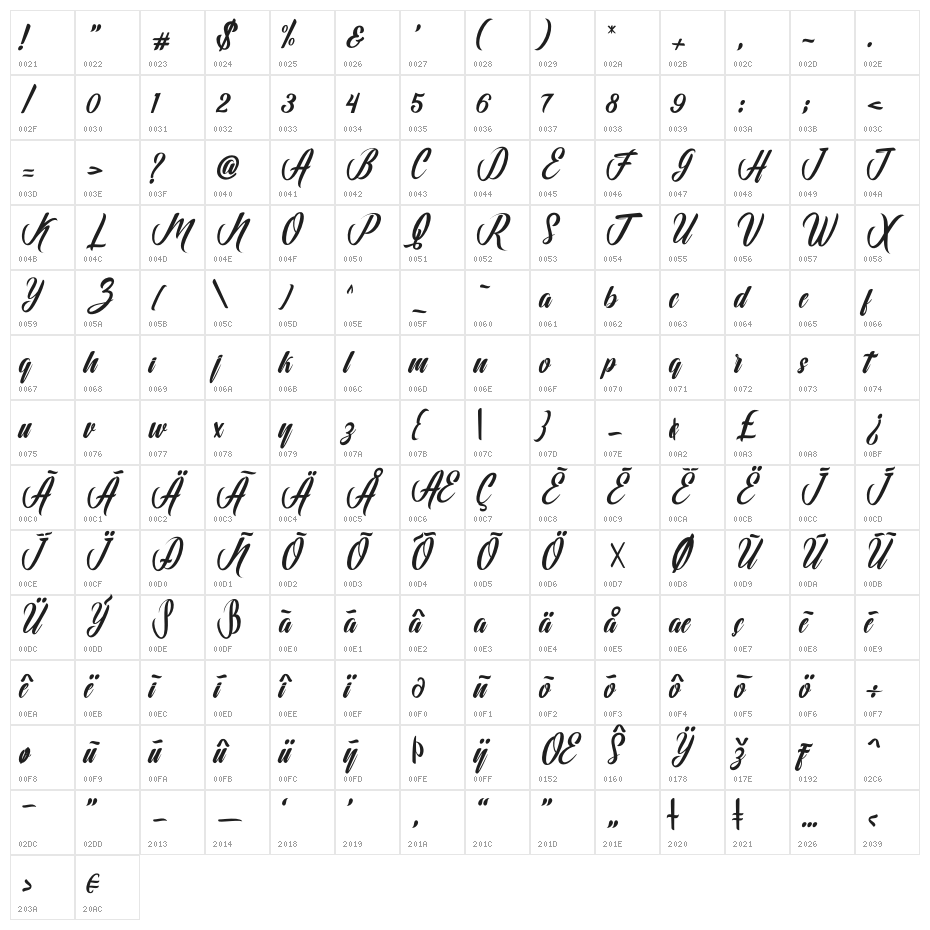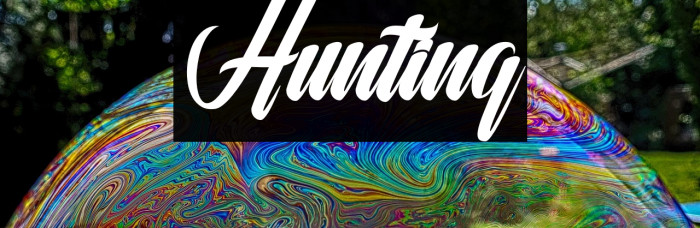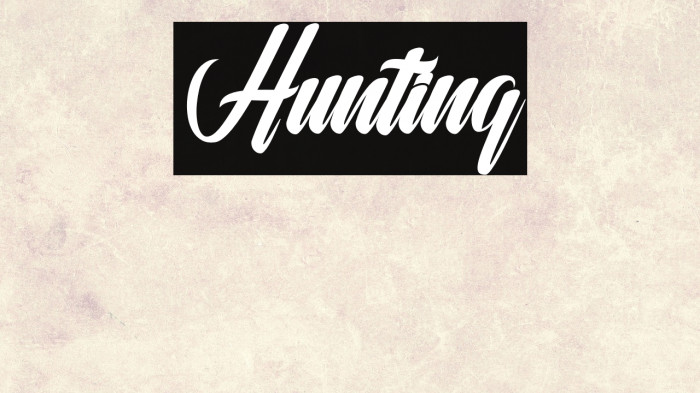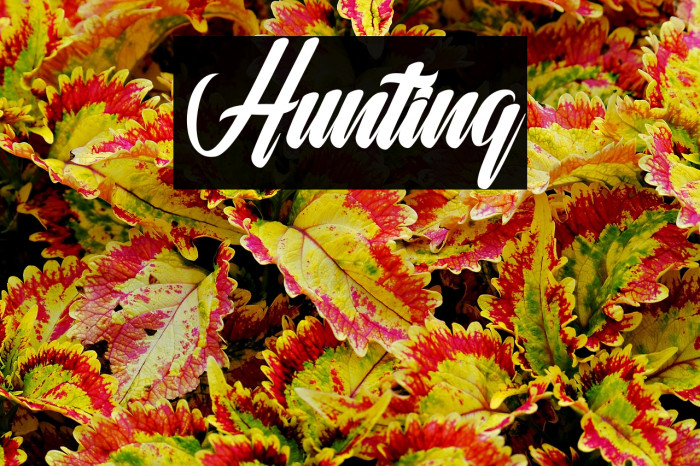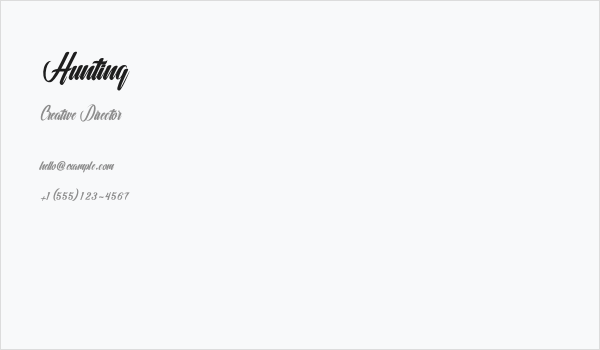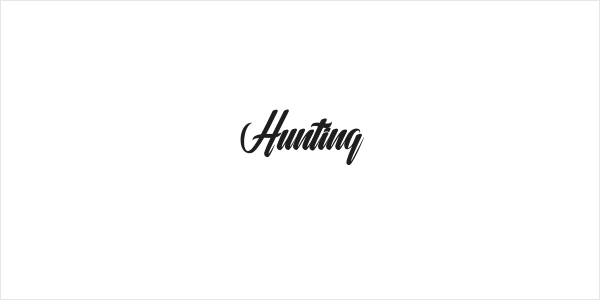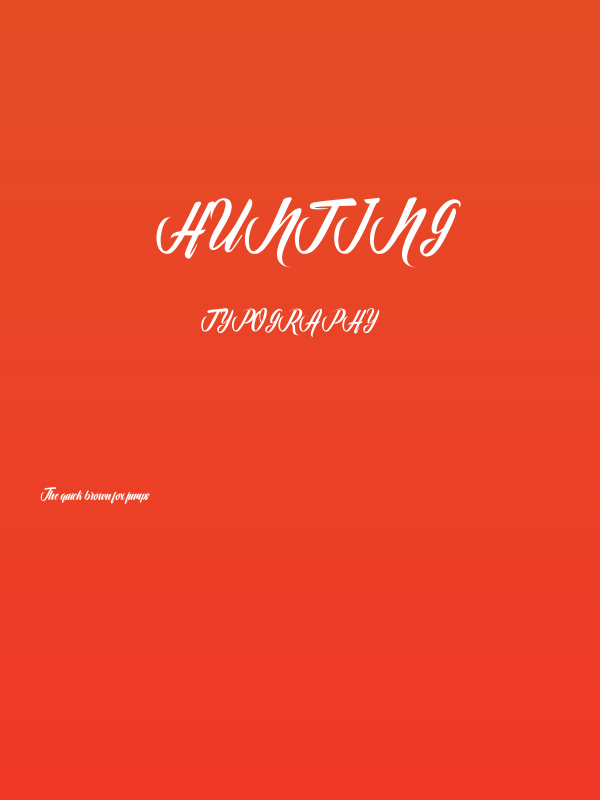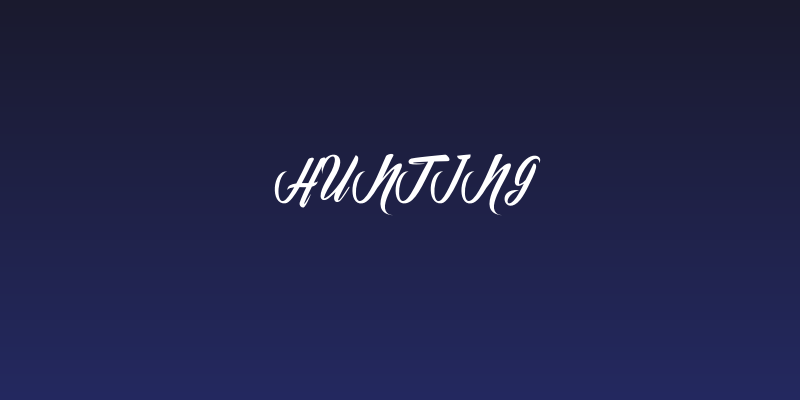
Hunting Font
Hunting Description
This elegant script font features flowing, cursive letters with a classic and sophisticated appearance. The uppercase letters are characterized by their sweeping curves and intricate details, while the lowercase letters maintain a smooth, connected style that enhances readability. The numerals are bold and slightly rounded, complementing the overall design. Special characters are crafted with the same attention to detail, ensuring consistency across all glyphs. This font exudes a sense of grace and refinement, making it ideal for formal and decorative applications.